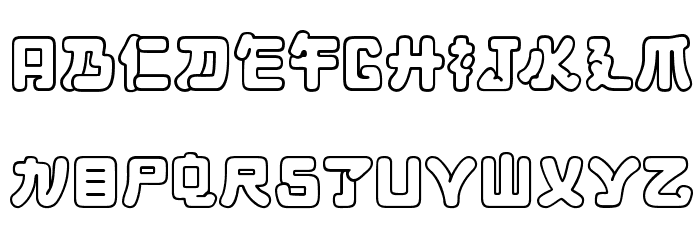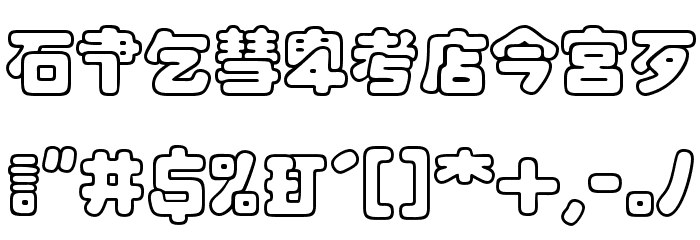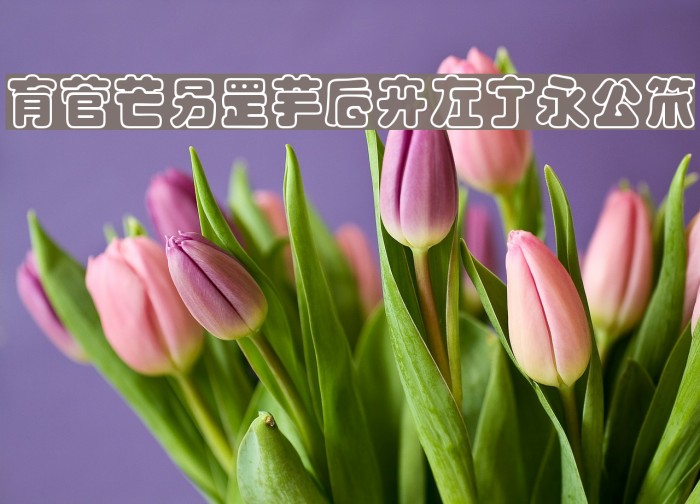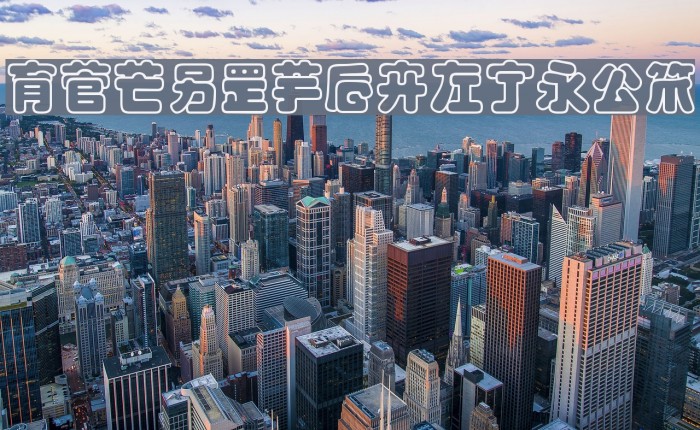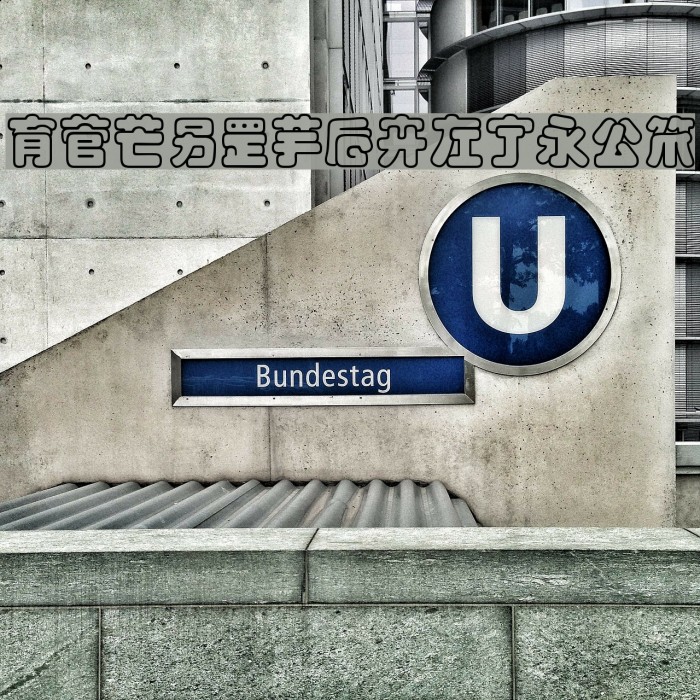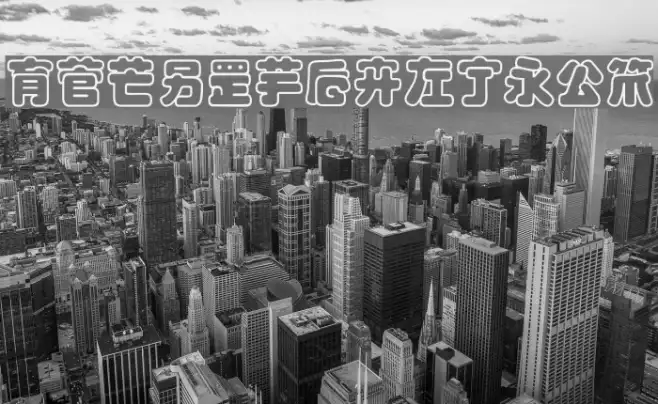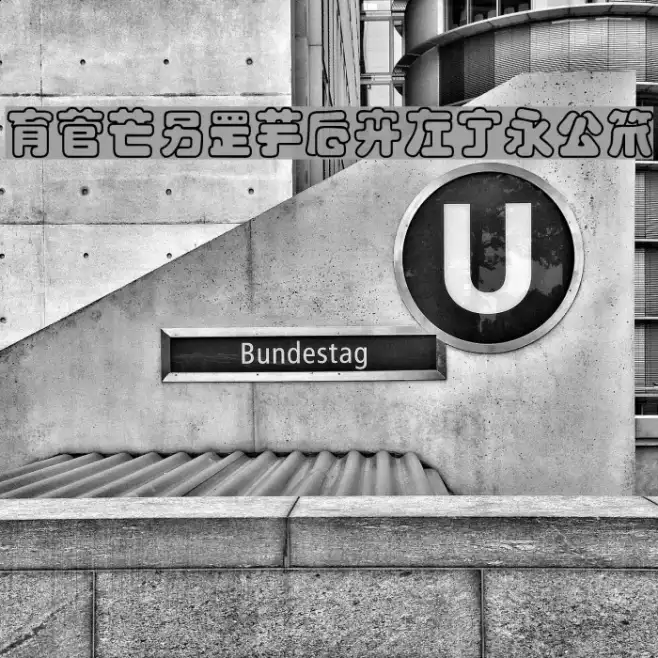
MaximageJululuOutline Font
This font features a playful and bold outline style, characterized by its thick, rounded edges and hollow interior. The letters are uniformly structured, maintaining a consistent width throughout, which gives it a cohesive and balanced appearance. The design is modern and eye-catching, making it suitable for creative and informal applications. The font includes a full set of uppercase and lowercase letters, numbers, and a variety of special characters, all maintaining the same outlined aesthetic. Its unique style makes it stand out, ideal for projects that require a fun and engaging visual element.
A bold, playful outline font with rounded edges and a modern aesthetic.
- Proposed Projects: Ideal for children's books, posters, logos, and any project requiring a fun and engaging look.